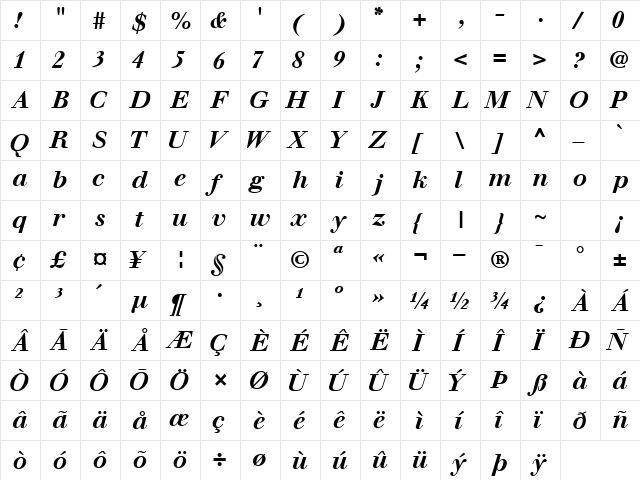
WalbaumSSK Bold Italic
Design Context for WalbaumSSK Typeface
WalbaumSSK is a composed and adaptable typeface that performs quietly and consistently across a wide range of design contexts. The slanted form adds forward momentum and visual energy. The heavy weight commands attention and anchors typographic hierarchies.
Pro Tip: Try WalbaumSSK for annotation and caption copy alongside an upright companion — the contrast in angle creates a dynamic but ordered typographic system.